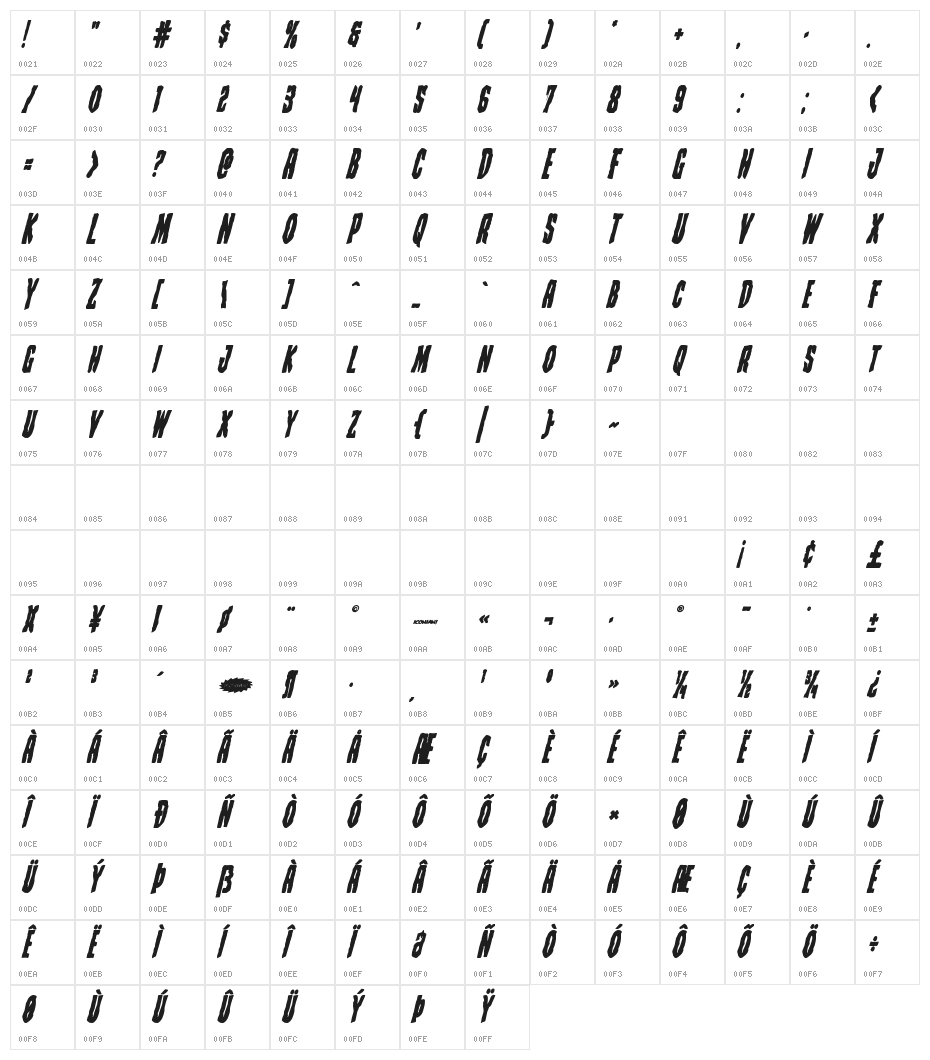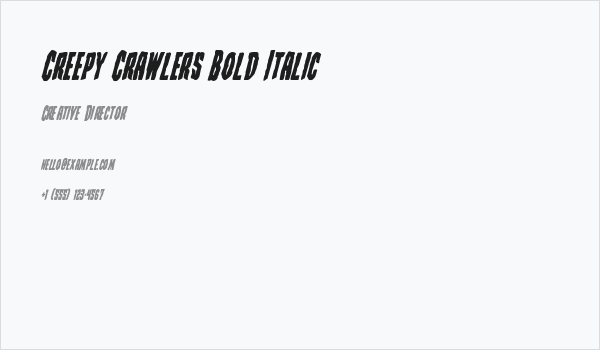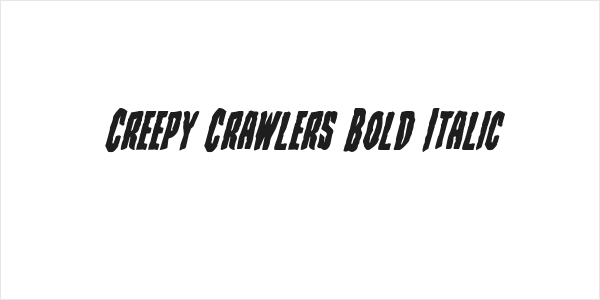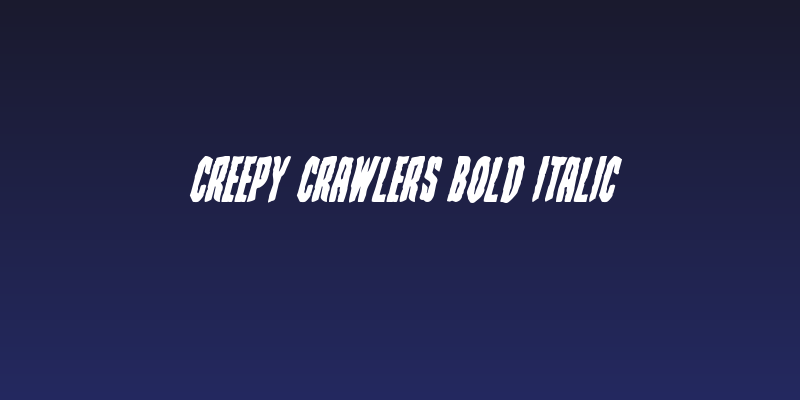
Creepy Crawlers Bold Italic Font
Creepy Crawlers Bold Italic Description
This font features a bold and italicized style with a distinct, jagged appearance that evokes a sense of movement and energy. The characters are heavily stylized, with sharp edges and irregular shapes that give them a dynamic and somewhat chaotic look. This makes the font particularly eye-catching and suitable for designs that aim to convey excitement or a sense of the unconventional. The uppercase and lowercase letters maintain a consistent style, ensuring readability while still offering a unique visual impact. The numbers and special characters are equally bold and maintain the same energetic style, making them ideal for attention-grabbing headlines or creative projects.
| Proposed Projects | Ideal for horror-themed posters, Halloween invitations, edgy branding, or any project requiring a bold, unconventional typeface. |